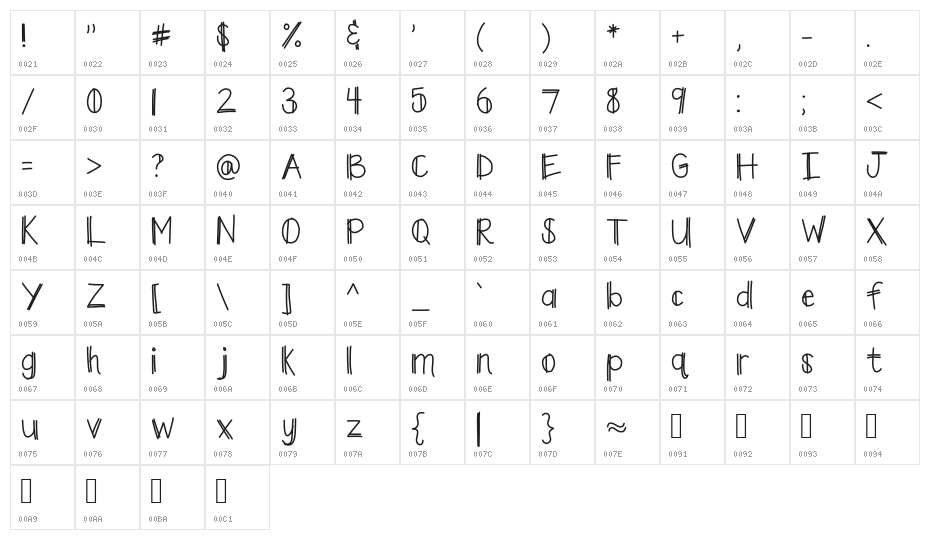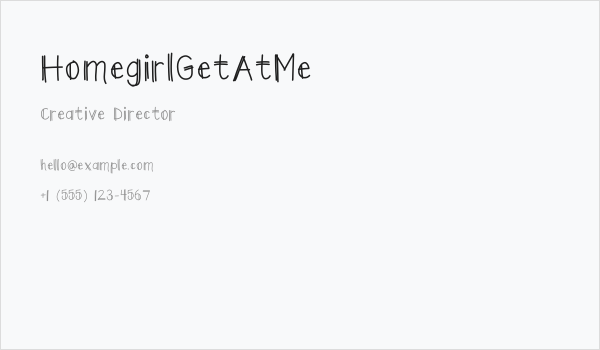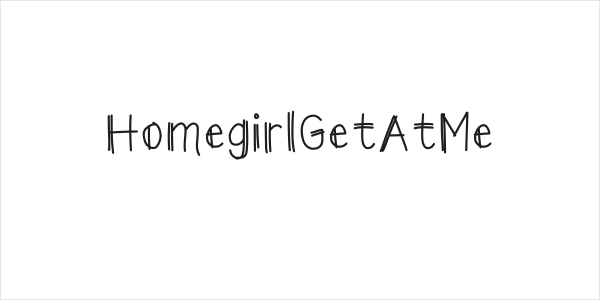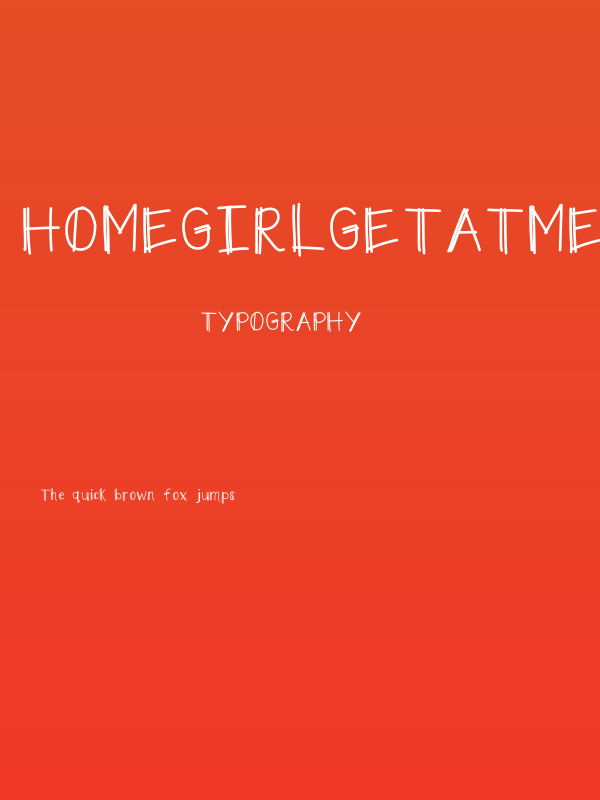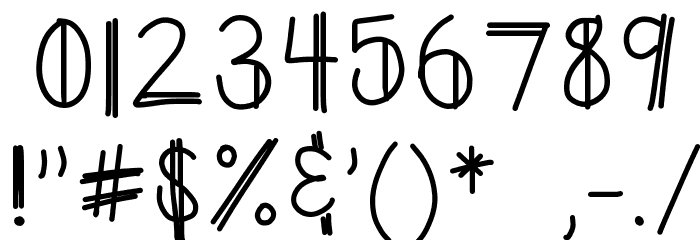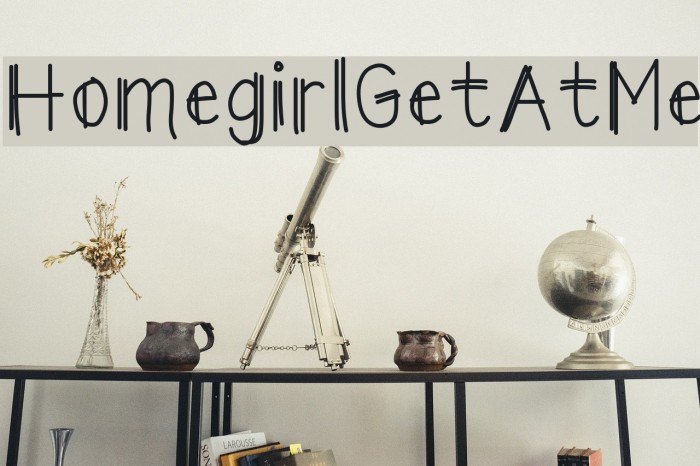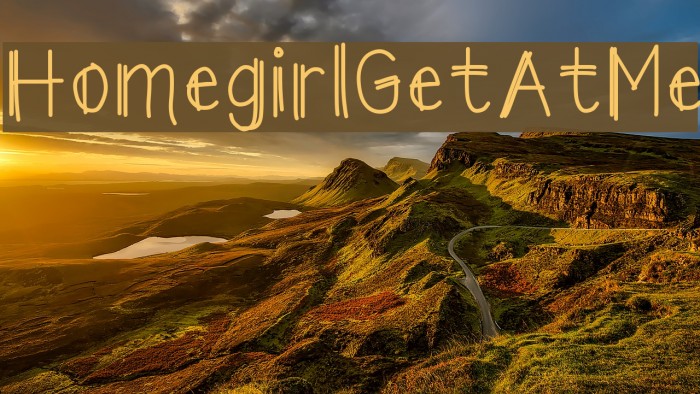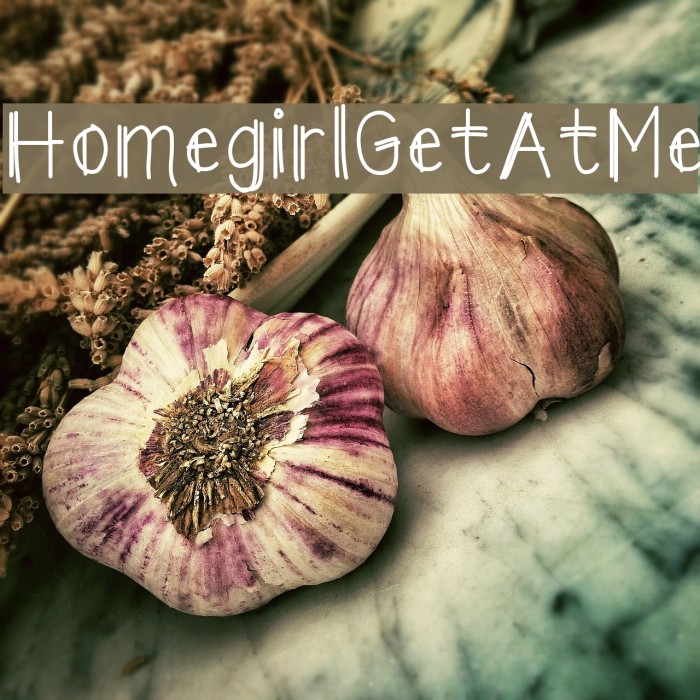
HomegirlGetAtMe Font
HomegirlGetAtMe Description
This font features a playful and casual handwritten style, characterized by its uneven strokes and whimsical appearance. The letters are slightly tilted, giving a dynamic and informal feel. The uppercase and lowercase letters maintain a consistent style, with rounded edges and a slightly irregular baseline that adds to its charm. Numbers and special characters follow the same playful design, making it suitable for creative and informal projects. The overall look is approachable and friendly, ideal for designs that require a personal touch.
| Overall Style | Casual, Playful |
| Use Case | Headlines, Informal text, Creative projects |
| Proposed Projects | Ideal for greeting cards, children's books, casual invitations, and playful branding. |
| Author | Fonts by Iconian Fonts |